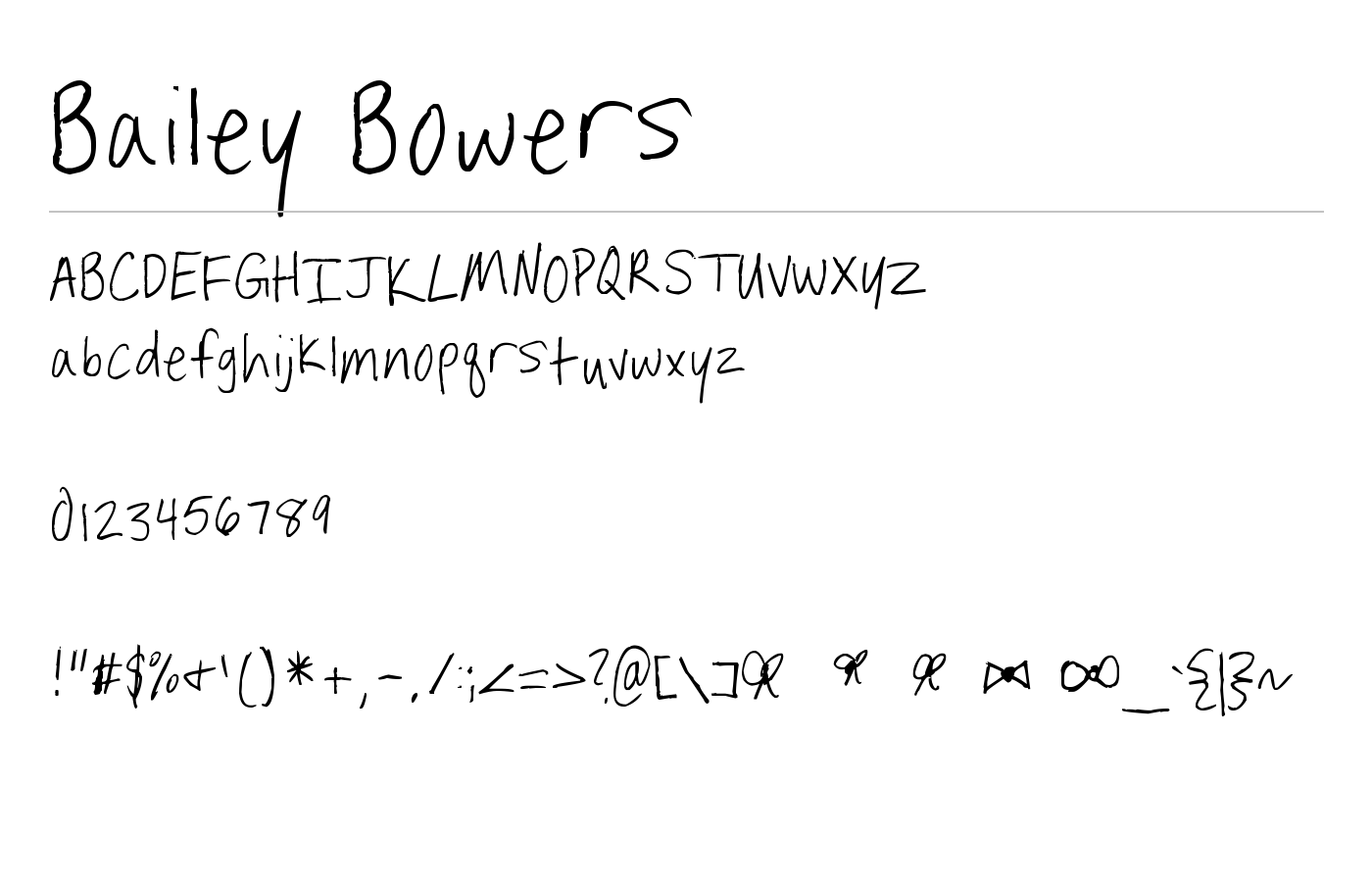
Bailey Bowers is a casual, handwritten sans serif font with a light weight and airy feel. Its tall, narrow letterforms and slightly irregular strokes give it an authentic, personal touch, perfect for adding a playful and approachable vibe. This font works well in creative projects, informal branding, and unique headlines where a hand-crafted, friendly style is desired.
Bailey Bowers Font
About Bailey Bowers Font